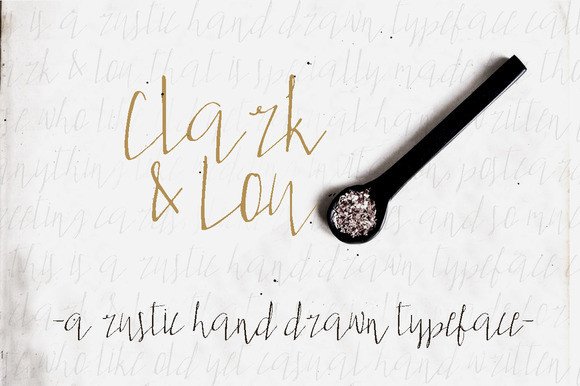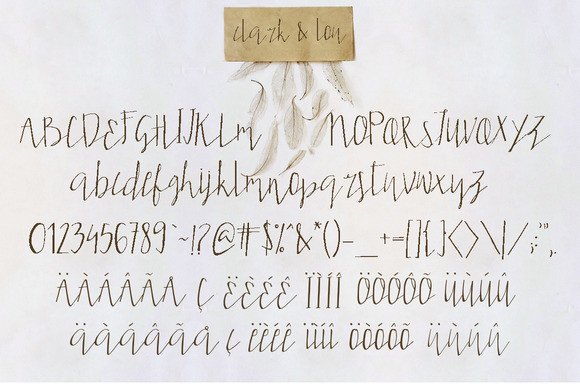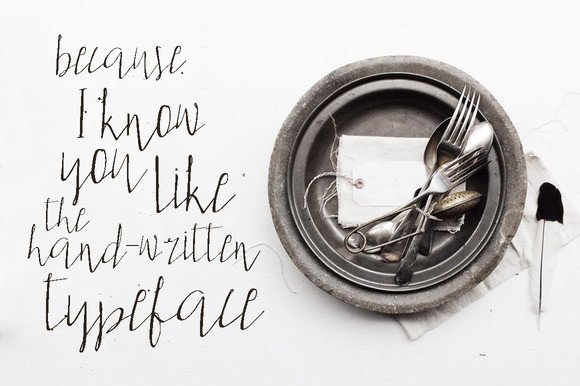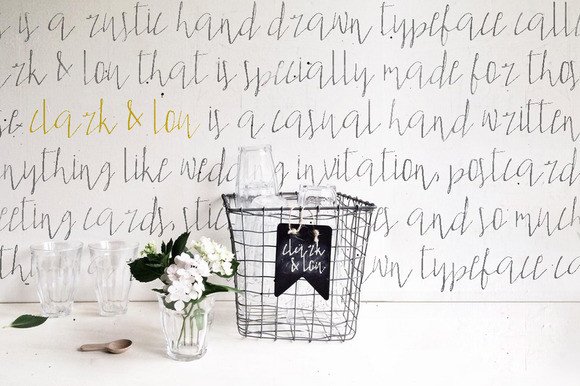
Clark & Lou Font
Clark & Lou is a rustic, feminine hand writing typeface that you can use for special occasions: greeting cards, wedding invitations, letters, labels, tags and other design projects. You decide!